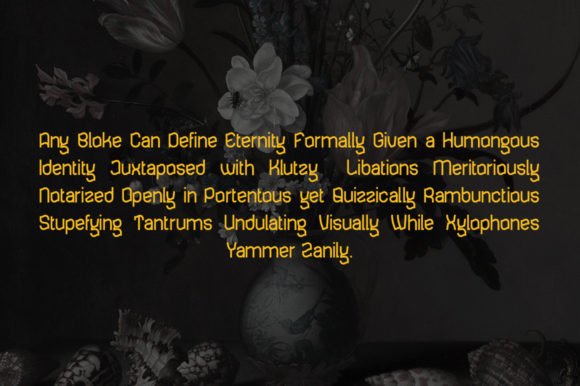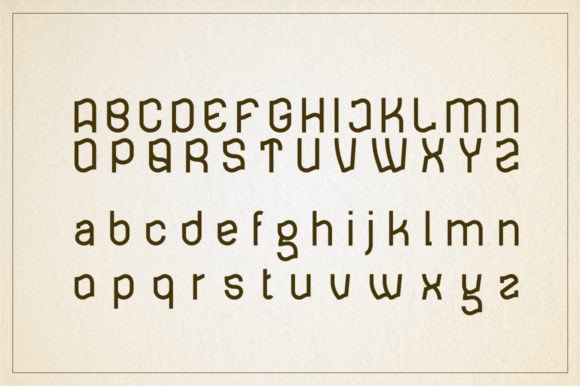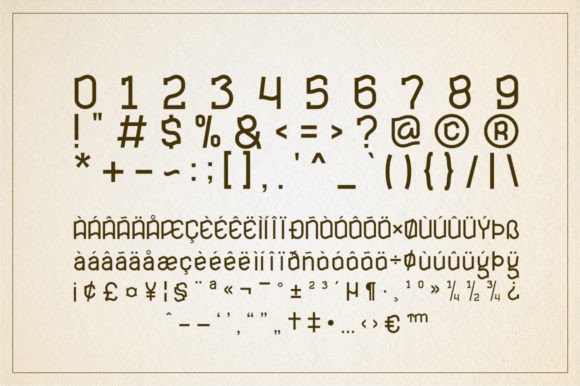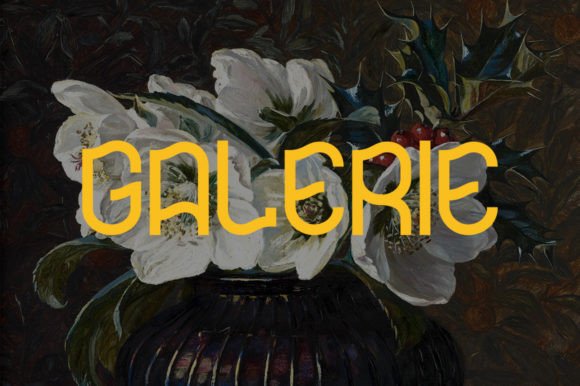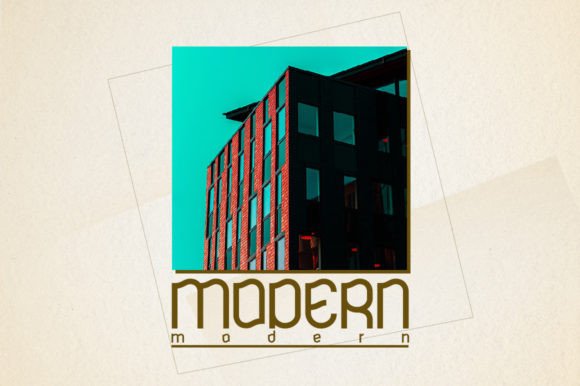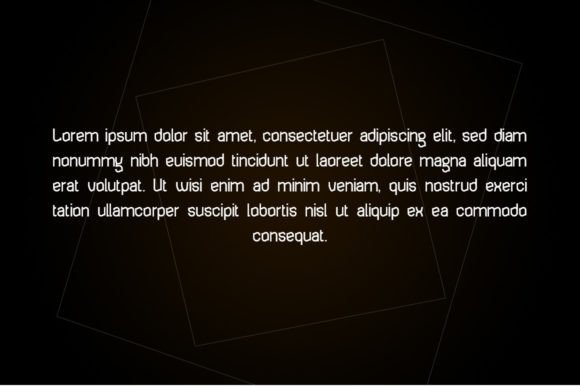
The Designer’s Delight: Unwrapping the Geostars Font
Ah, the thrill of the hunt for the perfect font! I still remember the time I was working on a project for a client who wanted a vintage-inspired logo. I had a clear vision of what I wanted to create, but my font library just wasn’t cooperating. That was until I stumbled upon the Geostars font. With its unique blend of retro charm and modern flair, it instantly elevated my design game. In this article, I’ll share my experience with Geostars, its features, and how to make the most of this stunning display font.
What I Love About Geostars ✨
- ✅ Vintage Art Style: Geostars boasts a distinct vintage art style that’s perfect for creating eye-catching designs.
- ✅ PUA Encoding: This font is PUA encoded, making it easy to access all glyphs and swashes.
- ✅ Versatility: Use Geostars for element designs, events, t-shirts, logos, badges, stickers, and more.
- ✅ Aesthetic Appeal: The font’s unique character set and swashes add a touch of elegance to any design.
While Geostars is an amazing font, there are a few things to keep in mind:
- ⚠️ Legibility at Small Sizes: As with many display fonts, Geostars may not be the best choice for body text or small font sizes.
- ⚠️ Character Limitations: Some users have reported that certain characters or diacritics may not be included.
The Designer’s Inspiration: The Story Behind Geostars
Geostars was created with the intention of capturing the essence of vintage art and design. The font’s unique character set and swashes are inspired by classic posters, logos, and advertisements from the mid-20th century. The designer aimed to create a font that would evoke a sense of nostalgia and timelessness, while still feeling modern and fresh.